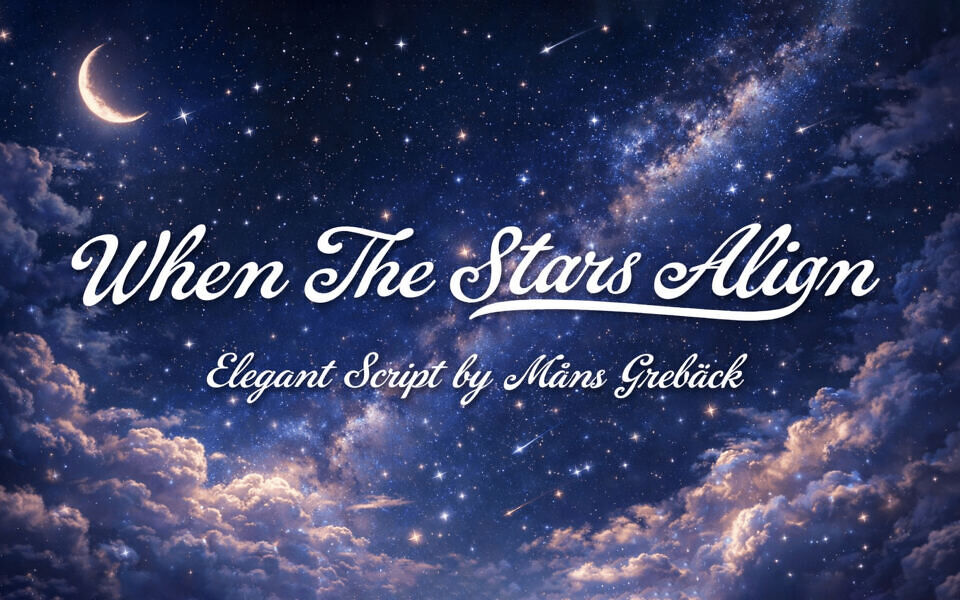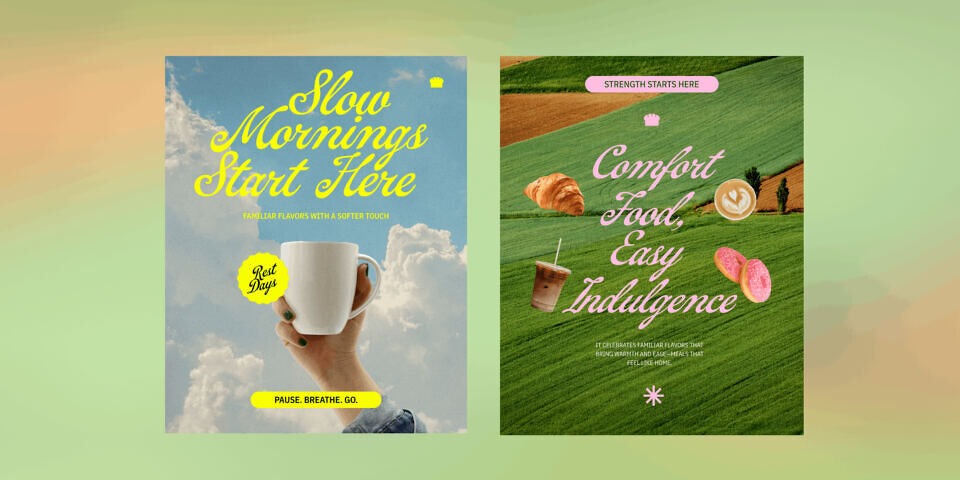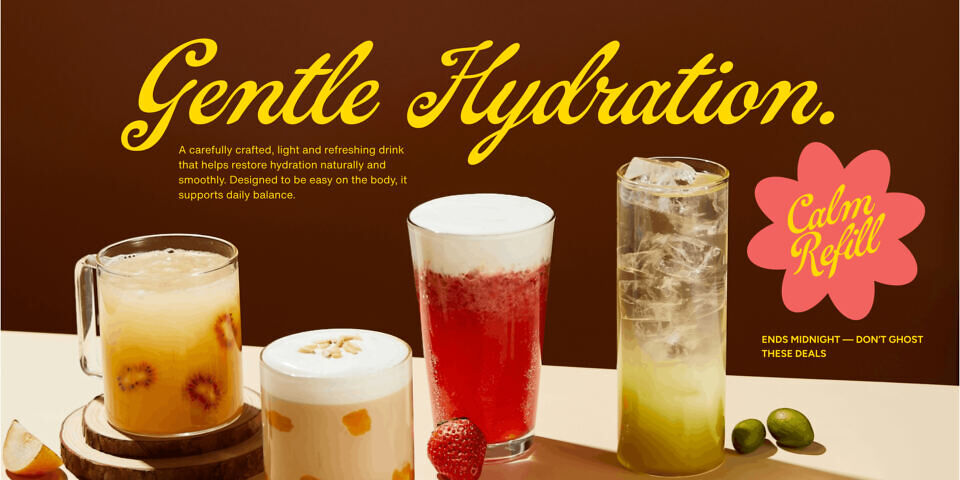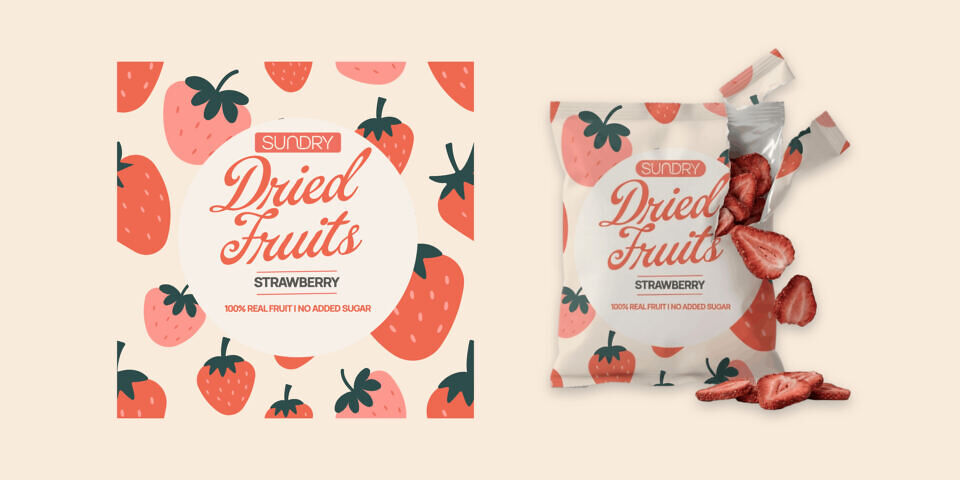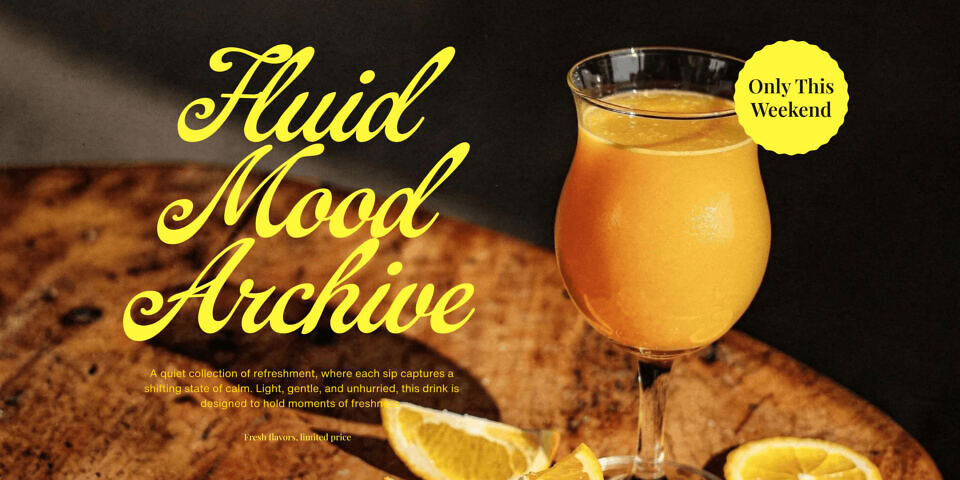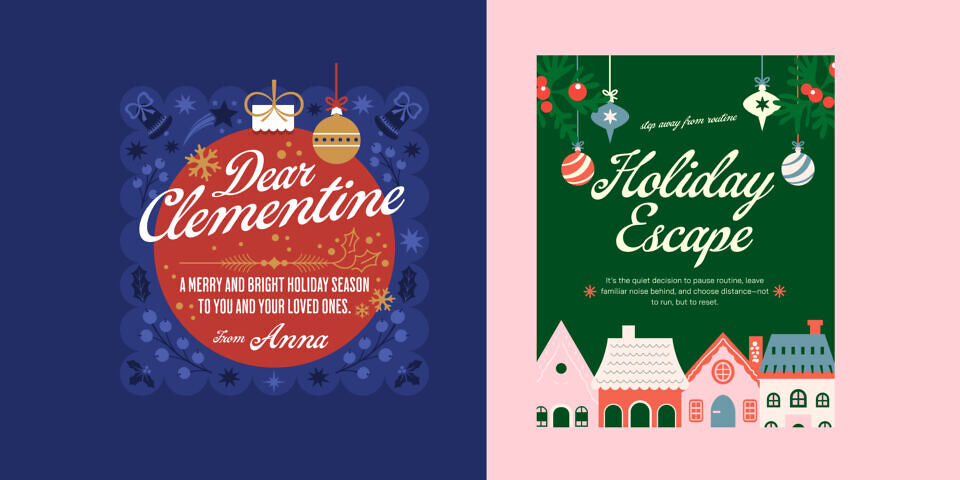
When The Stars Align is an elegant script with a calm, luminous presence. Its letterforms flow smoothly, with gentle contrast and carefully shaped curves that give the text a sense of balance and intention. The rhythm is unhurried, allowing words to breathe while still feeling connected and deliberate. Subtle swashes and soft joins add character without drawing attention away from the message.
The overall impression is romantic and thoughtful, as if written under a clear night sky. It suits moments that call for warmth and sincerity, where the lettering should feel personal but refined, like a handwritten note saved for something meaningful.